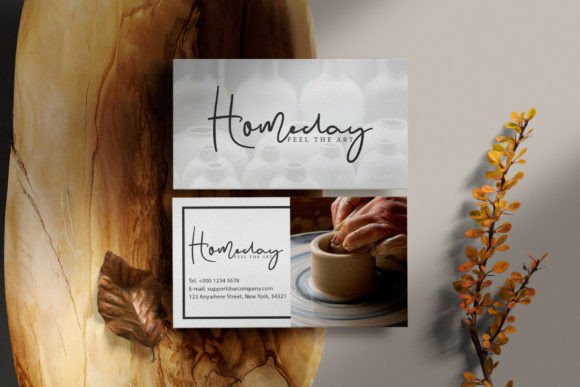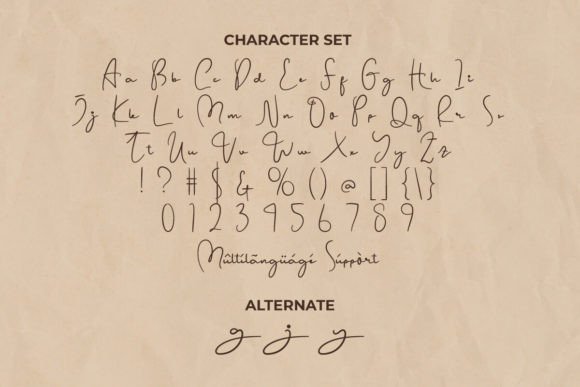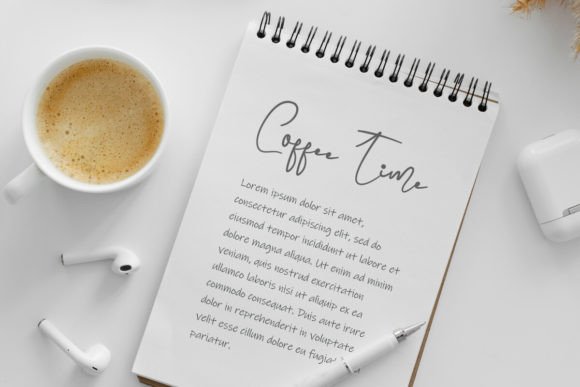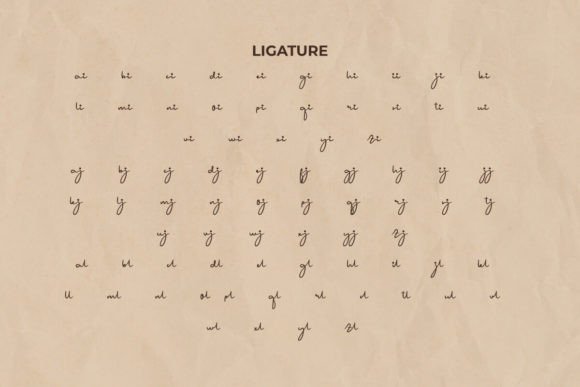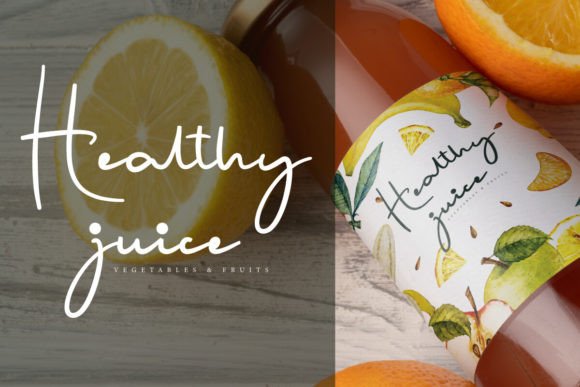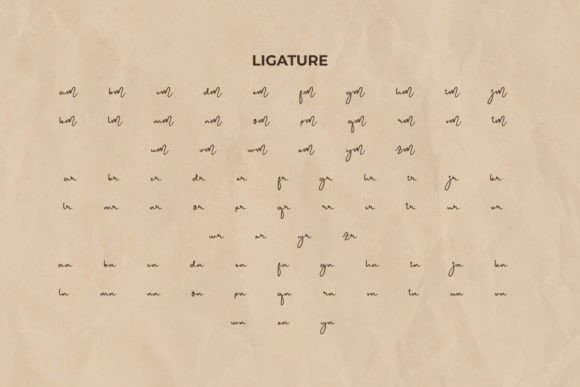
Introduction to Memorizing Font
Have you ever found yourself lost in the simple act of writing, the scratch of the pen on paper, the flow of thoughts onto a blank page? For designers, those moments can be the spark that ignites a creative project. And for those who love the art of handwriting, the Memorizing Font is a treasure trove of inspiration.
This stylish script font, with its beautiful lines and handwriting style, is a game-changer for designers. Its versatility makes it perfect for a wide range of projects, from book notes and business cards to invitations and packaging design. Whether you’re looking for a free download or a high-quality design resource, Memorizing Font is a valuable addition to any designer’s toolkit.
With its transparent background and elegant feel, Memorizing Font is the perfect choice for designers who want to add a touch of sophistication to their creative projects.
Memorizing Font Key Features
- High-quality font with a transparent background, ideal for creative projects and design resources.
- The font is designed to be versatile and can be used for a wide range of creative projects, from branding and logos to digital art and print materials.
- Memorizing Font is a unique and creative design resource that can help designers stand out from the crowd and add a personal touch to their work.
Honest Review: Memorizing Font
As a designer, I was excited to try out the Memorizing Font for my latest creative project. I downloaded it for free, which was a great bonus, and was impressed by its high quality and unique design.
- ✨ Unique and creative design that adds a personal touch to any project
- ✨ High quality and crisp font that’s perfect for digital use
- ✨ Transparent background, making it easy to use in any design scenario
- ⚠️ Limited character set, which can be restrictive for longer texts
- ⚠️ Not ideal for body text, as it can be quite distracting
Overall, I’d say the Memorizing Font is a great design resource for creative projects where you want to make a statement. While it may not be suitable for all design scenarios, its unique design and high quality make it a great addition to any design toolkit.
Memorizing Font
What is Memorizing Font?
Memorizing Font is a high-quality, free download design resource ideal for any creative project. This font is versatile and can be used in various applications, from graphic design to digital art.
Tips for Getting the Most Out of Memorizing Font
To get the most out of Memorizing Font, try using it with a transparent background to create a sense of depth and dimensionality in your design. You can also experiment with different font sizes and colors to create a unique and eye-catching look.